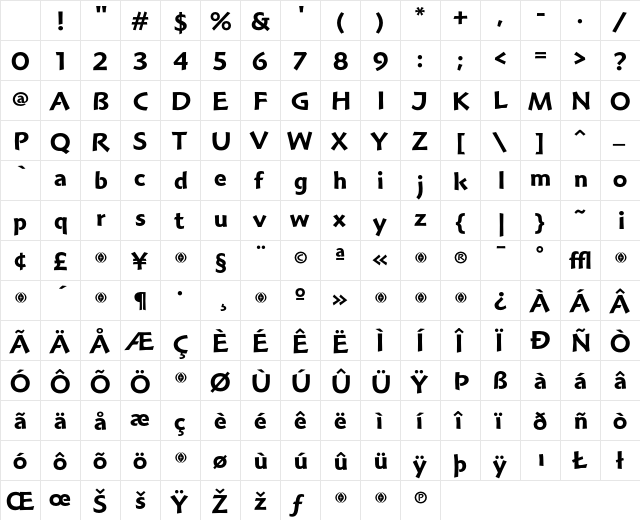
Complete Hoffmann Bold glyph index. Displaying only characters natively supported by Hoffmann Bold font.
Hoffmann is a composed and adaptable typeface that performs quietly and consistently across a wide range of design contexts. Its bold stroke weight gives it real presence on the page.